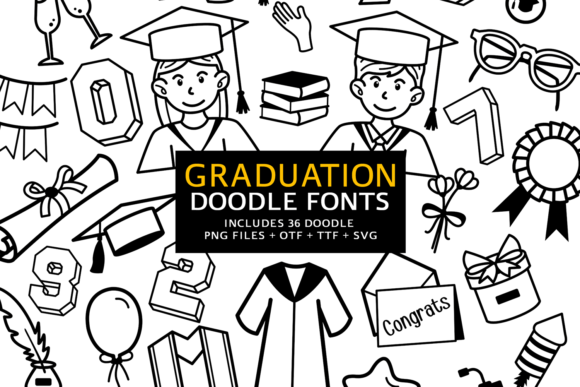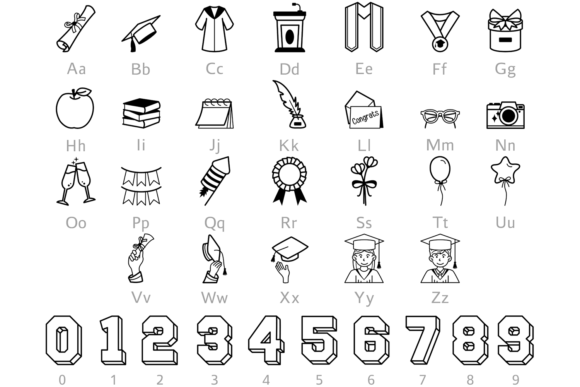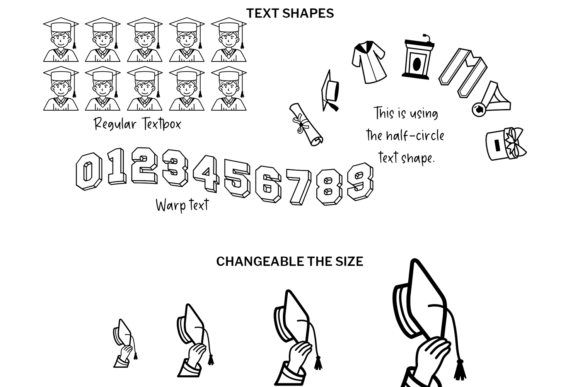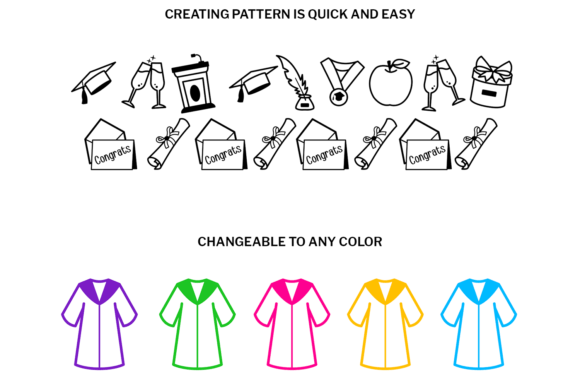
Graduation Doodle Font
About the Graduation Doodle Font
The Graduation Doodle Font is here to transform your projects with its distinctive character and style. Graduation Doodle is a fun and cute dingbats font. Its versatility makes it great for a School Grad, planners, and diaries, and Great for crafters and graphic artists alike. Compatible with tools such as Photoshop or Illustrator. or anything your heart desires!
Graduation Doodle’s playful, hand-drawn aesthetic makes it ideal for projects requiring a youthful and approachable feel. It excels in headlines, short text blocks on social media graphics, invitations, and children’s book illustrations. Avoid using it for body text or lengthy paragraphs; its informal nature would hinder readability.
This font pairs well with clean sans-serif fonts like Open Sans for a balanced contrast, or a more playful script font such as Pacifico for a consistent whimsical feel. Consider using a geometric sans-serif like Montserrat for a modern, slightly more structured counterpoint.
The font’s core personality is undeniably fun and friendly, conveying a sense of lighthearted celebration and youthful energy. Brands targeting a young demographic, particularly those in education, crafting, or children’s products, will find it particularly effective.